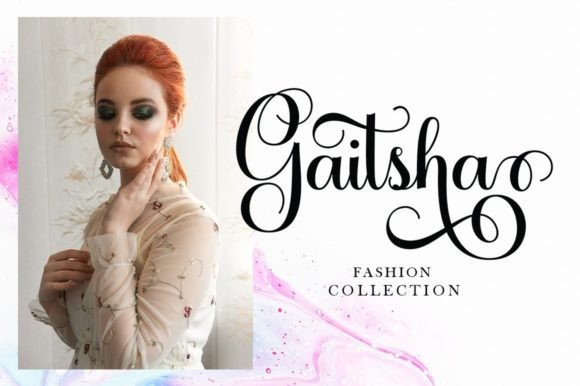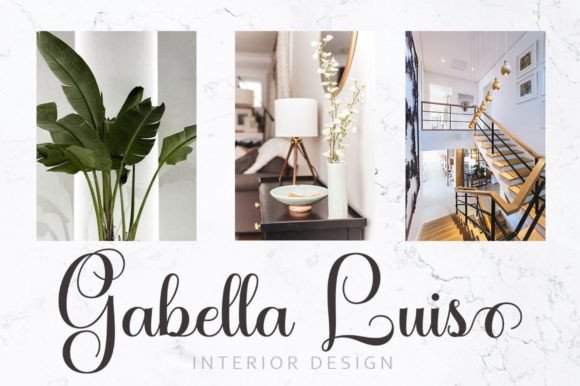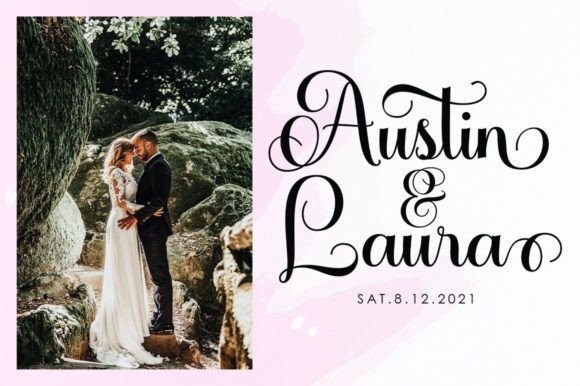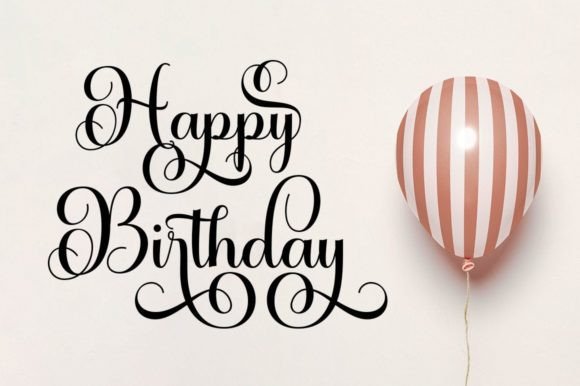
Introduction to Micelina Font
Do you remember the thrill of choosing the perfect font for a creative project? The excitement of watching your words come to life, and the satisfaction of seeing your design shine? For designers, finding the right font can be a game-changer, making all the difference in conveying the tone and personality of a brand or message.
That’s where Micelina Font comes in – a modern and sweet handwritten font that’s sure to captivate your audience. With its decorative characters that dance along the baseline, Micelina Font is perfect for invitations, greeting cards, branding materials, business cards, quotes, posters, and many more. Whether you’re working on a design project or simply want to add a touch of elegance to your digital creations, Micelina Font is a valuable resource that’s sure to delight.
Key Features of Micelina Font
- Available in 4 different font styles: Micelina Regular, Micelina Italic, Micelina Bold, and Micelina Bold Italic.
- Perfect for use in logos, typography, and other design elements where a sophisticated and elegant look is desired.
Honest Review: Micelina Font
I recently stumbled upon the Micelina Font, and I must say it’s a great addition to any designer’s toolkit. The Micelina Font is a high-quality, elegant script font perfect for creative projects that require a touch of sophistication.
- ✨ Elegant and sophisticated design style
- ✨ Versatile and suitable for various design applications
Overall, I’m impressed with the Micelina Font. It’s a great design resource that can elevate any creative project. However, it does have some limitations, such as limited language support and no transparent background option. Nevertheless, I would highly recommend the Micelina Font to any designer looking for a high-quality, elegant script font.
Using Micelina Font in Creative Projects
Designing with Micelina Font
Tips for Getting the Most Out of Micelina Font